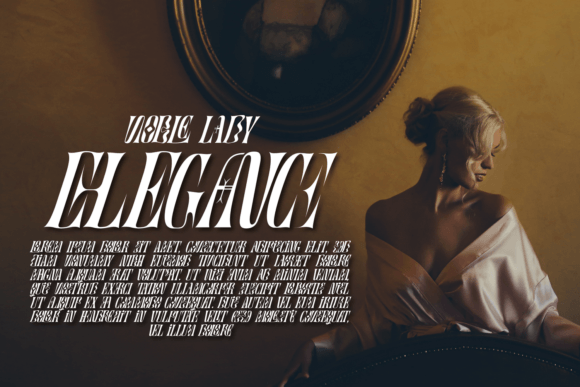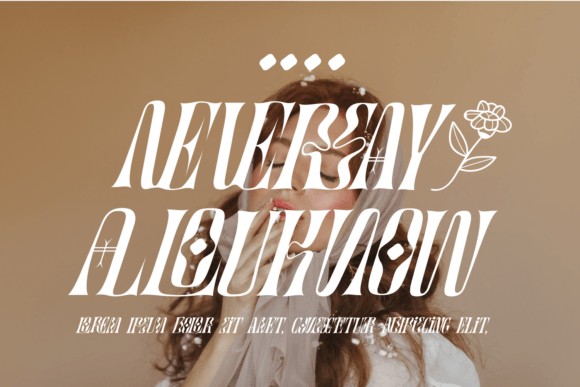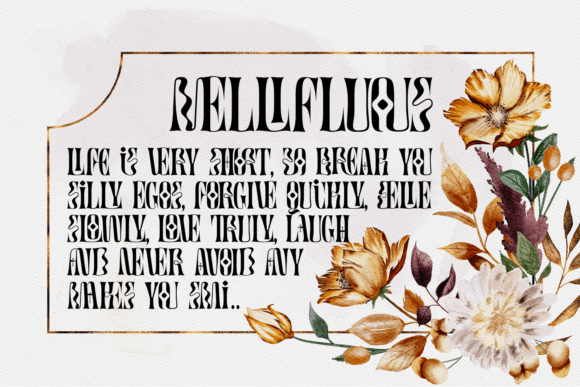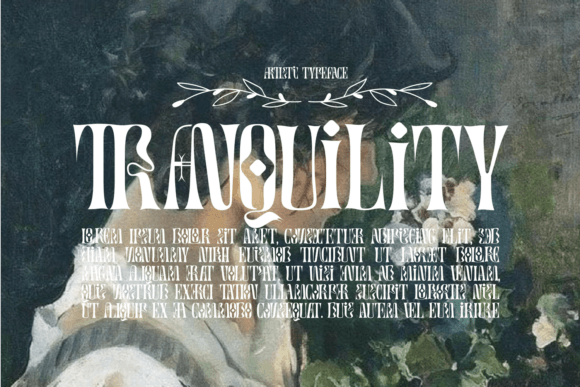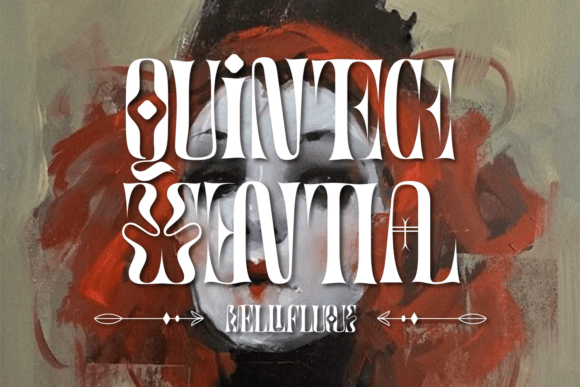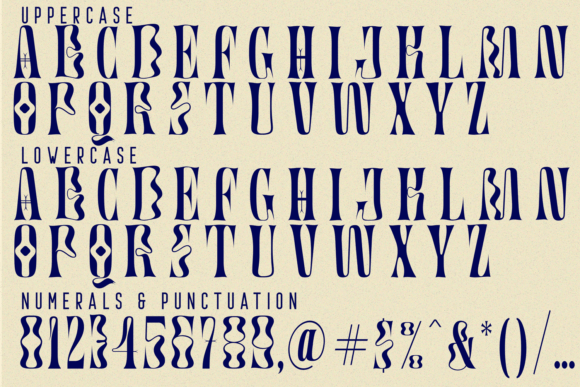
Unlocking the Power of Artistic Condensed Font
As you sit at your desk, staring blankly at your computer screen, the creative spark finally hits. You envision a bold, eye-catching logo or a striking magazine headline that demands attention. The excitement builds as you imagine the possibilities. But, the challenge lies in bringing that vision to life – and that’s where the Artistic Condensed Font comes in.
This innovative font is a masterful blend of the futuristic and the organic, with sharp lines and a wavy display face that adds a touch of sophistication to any design. Whether you’re a seasoned designer or just starting out, the Artistic Condensed Font is an invaluable tool in your creative arsenal, perfect for logos, name cards, magazine layouts, invitations, and more.
With its simple elegance and versatility, the Artistic Condensed Font is sure to elevate your work and leave a lasting impression. So, why settle for ordinary when you can unleash the power of this artistic condensed font and take your designs to the next level?
Key Features of Artistic Condensed Font
- Font Family: Artistic Condensed Font
- Unique Characteristics: Artistic Condensed Font features a sleek, condensed design with a mix of rounded and angular shapes, making it perfect for titles, headings, and short paragraphs in modern designs
Design Review: Artistic Condensed Font
Overall, I think the Artistic Condensed Font has some great qualities, but it also has some limitations that might make it less appealing to certain designers.
- The font’s condensed design makes it perfect for headlines, titles, and short paragraphs where space is limited.
- The artistic flair in the font’s design adds a unique touch and can help make your designs stand out.
- The font’s high x-height makes it easy to read, even at smaller sizes.
- It’s available in a wide range of weights and styles, making it versatile and suitable for various design projects.
- The font’s condensed design can make it difficult to read in long blocks of text, which might be a problem for body text or large amounts of content.
- The artistic flair in the font’s design might be too much for some designers, making it difficult to read or understand the text.
- The font’s high x-height can make it look a bit too condensed or narrow in some cases.
Overall, I think the Artistic Condensed Font is a great choice for designers who need a unique and eye-catching font for headlines or titles. However, it might not be the best choice for body text or large amounts of content. With some careful consideration and use, this font can be a great addition to your design toolkit.
Use Artistic Condensed Font for headlines, titles, and short text snippets to add a touch of elegance and sophistication.
Experiment with different font sizes and styles to create visual interest and emphasis.
Pair Artistic Condensed Font with other fonts to create a unique and visually appealing typography.
Use Artistic Condensed Font for:
Headlines and titles
Short text snippets and quotes
Brand logos and identity
Advertising and marketing materials
Alternatives to Artistic Condensed Font for Designers
Great Vibes is a beautiful script font that is perfect for adding a touch of elegance and sophistication to your designs. It’s ideal for use in logos, branding, and advertising materials where a unique and eye-catching font is required.
Compared to Artistic Condensed Font, Great Vibes has a more fluid and cursive feel, making it better suited for designs that require a softer and more whimsical touch. While Artistic Condensed Font has a more condensed and condensed feel, Great Vibes is more suitable for titles and headings where a larger font size is needed.